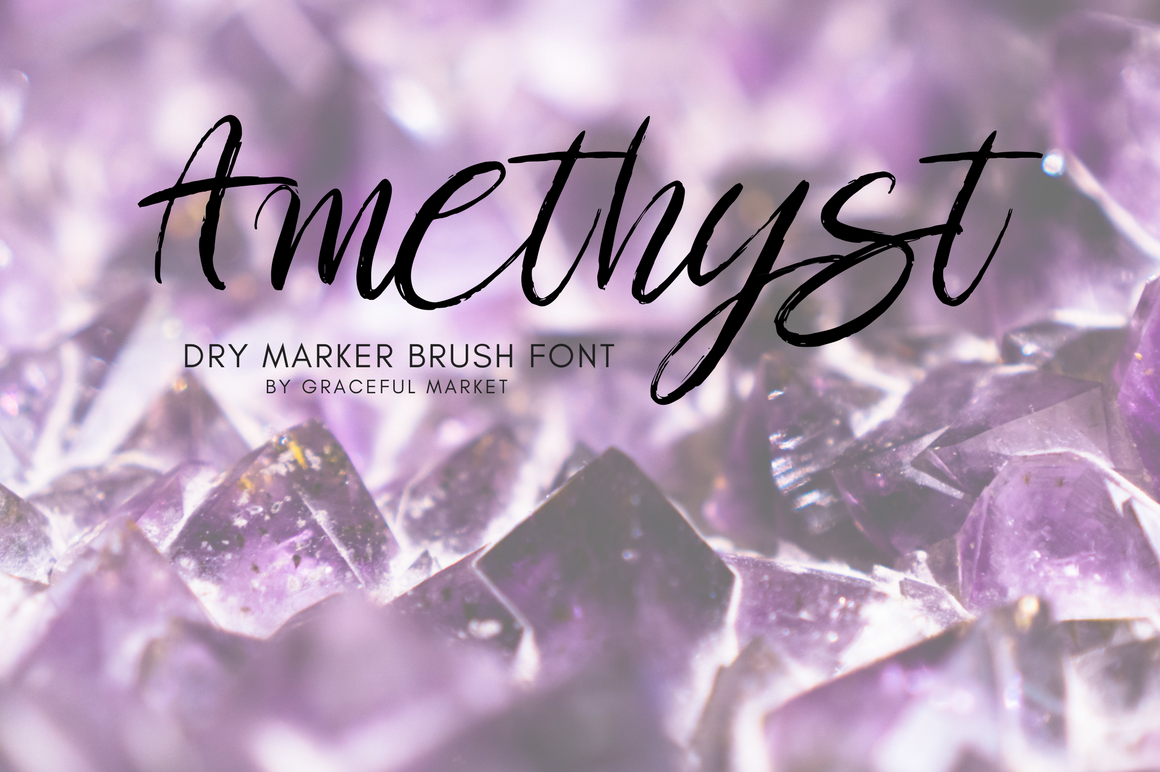
Amethyst Script Brush Font
Introducing Amethyst Brush Script! A care-free, dry marker script with unique brush pen strokes.
Great for signatures, greeting cards, T-Shirt, logos, or any branding project.